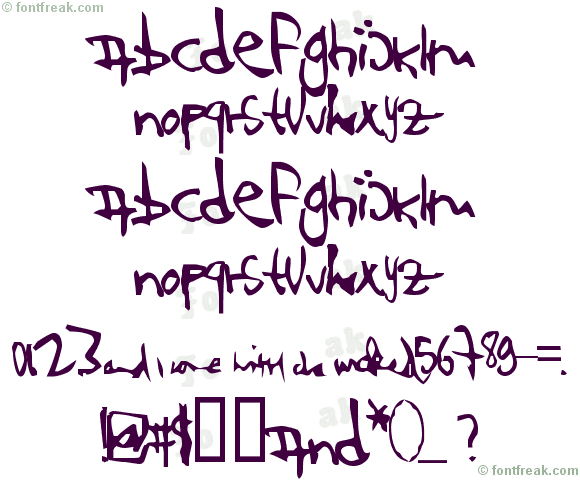
123 and...
The "123 And..." font by Mgm/design is a distinctive display typeface that captures attention with its playful yet professional aesthetic. Released in 1998, this font embodies a unique blend of modern design principles and whimsical characteristics, making it a versatile choice for various creative projects. The font features a balanced stroke weight that provides clarity while maintaining an engaging visual appeal. The letters exhibit a charming contrast, where rounded and angular forms coexist harmoniously, making it suitable for both headlines and body text. The generous spacing between the characters adds to its readability, ensuring that your message stands out.
Ideal for a range of applications, "123 And..." shines in contexts such as wedding invitations, where its lighthearted nature adds a touch of joy to the occasion. It is also well-suited for children's book covers, giving a friendly and inviting feel that appeals to young readers. Additionally, this font can enhance restaurant menus, providing an approachable yet stylish look that entices diners. Graphic designers and content creators alike will find this typeface a valuable tool for crafting promotional materials, social media graphics, or even event flyers.